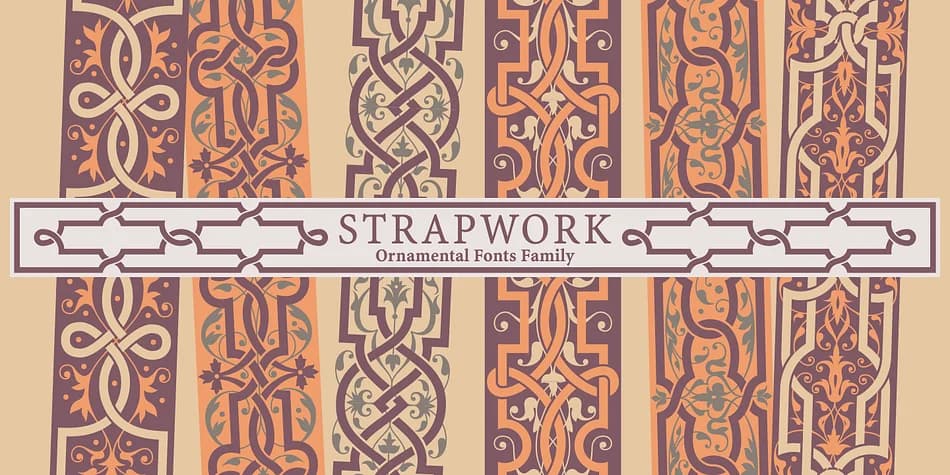
This font captures a sense of ornamental grandeur that feels both historical and fresh. Strapwork, created by 2D Typo, draws directly from the ornamental language of 16th-century Mannerism, pulling from Balthasar Bos's carefully etched studies of ribbon-and-scroll patterns. It's a dingbat font built on those visual principles: detailed, layerable, and designed for designers who care about craft.
You'll find this collection working beautifully as ornamental borders on luxury wedding stationery, decorative frames for vintage-inspired textile collections, and ornate elements in historical or revival-style book design. The font includes over ten distinct motifs plus four weight variations that combine endlessly when you stack ribbon elements over botanical accents, creating rich multicolor effects. Cut leather labels with precision, hand-draw package designs, or build complex digital illustrations and the linework never degrades, even at fine scales, thanks to the careful vector work.
Pair Strapwork with a clean, geometric sans-serif like Montserrat or Inter to keep layouts breathing. The contrast between ornamental detail and modern simplicity is exactly where this font thrives. Grab it from Creative Fabrica and start layering: the same ornaments that work in formal classical layouts transform completely in grunge collages or experimental typographic compositions.
Strapwork Font is a versatile dingbats font that works for both headings and body text. Pair it with a contrasting sans-serif or serif font to add visual interest and a clear distinction between titles and body copy.